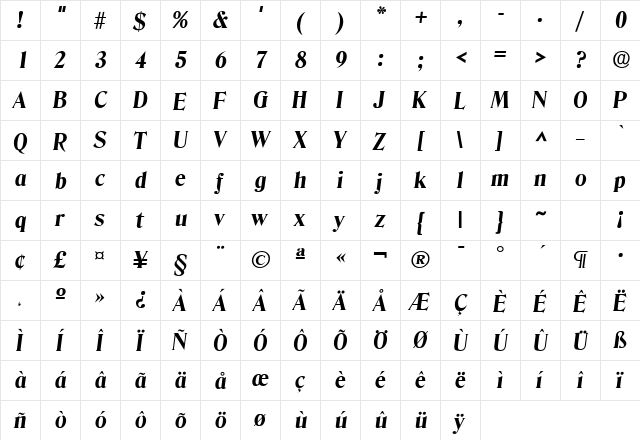
Blue Ridge SF Bold Italic Font Preview
Design Context for Blue Ridge SF Typeface
Blue Ridge SF takes a measured approach to typography — its balanced proportions and neutral character make it a reliable workhorse for both digital and print work. The dynamic lean of this cut emphasises speed and emphasis in any layout. The heavy weight commands attention and anchors typographic hierarchies.
Pro Tip: Try Blue Ridge SF for annotation and caption copy alongside an upright companion — the contrast in angle creates a dynamic but ordered typographic system.